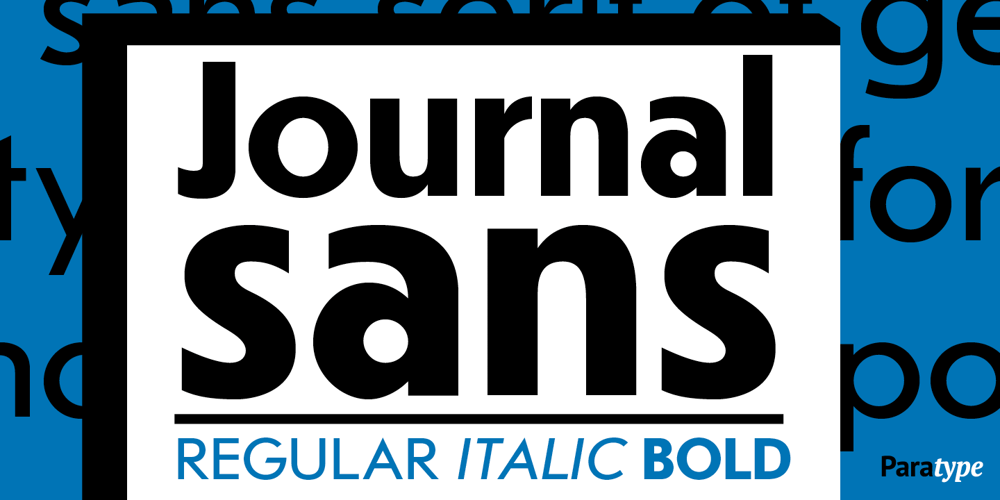
Journal Sans Font Family was designed by Anatoly Shchukin, Olexa Volochay and published by ParaType. Journal Sans contains 3 styles and family package options. The typeface was designed at the Polygraphmash type design bureau in 1940-56 (project headed by Anatoly Shchukin) based on Erbar-Grotesk typeface of Ludwig & Mayer company, 1929 by Jakob Erbar, and on Metro typeface of Mergenthaler Linotype, 1929 by William A. Dwiggins. A sans serif of geometric style. For use for text and display typography. In 2014 designer Olexa Volochay made some corrections in original digital data and extended character set. The family was rereleased in ParaType in 2014.